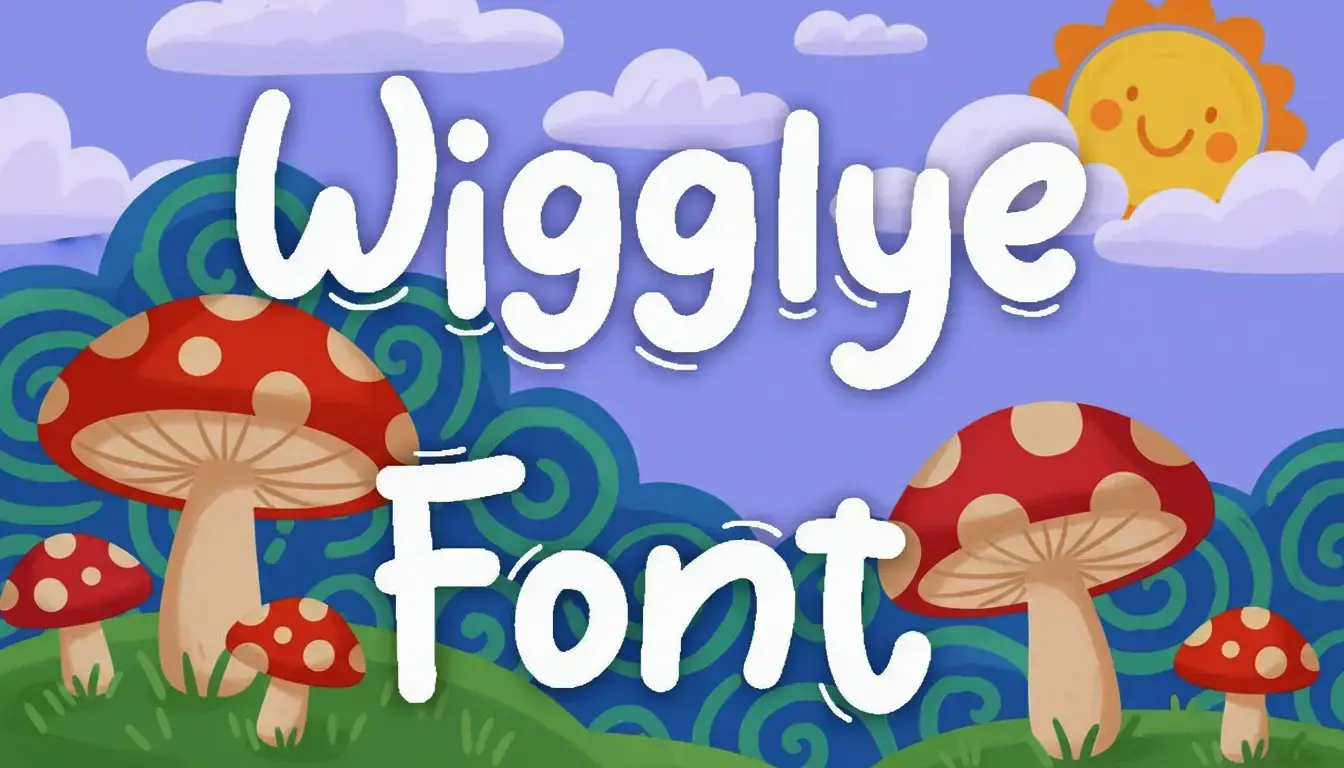
Wigglye Font
Wigglye is a fancy font created by Rian Rahardi and released through Creatype Studio Co. Bold and full of character, it's built to stand out rather than blend in. You can download it for free and test it with your own words in the preview above.
What You Can Type With Wigglye
With complete upper and lowercase letters and all ten digits, Wigglye is ready for real wording, not just a single headline. Common punctuation such as &, !, ? and @ is included as well. It also has the accented letters you need for German.
Where Wigglye Works Best
Designers usually reach for fonts like Wigglye when they're making posters, logos and eye-catching headlines. Use it for one standout word or headline and let simpler fonts handle the rest.
Does Wigglye support accented letters?
Yes. Wigglye includes the accented letters needed for German, so it works for more than just English.